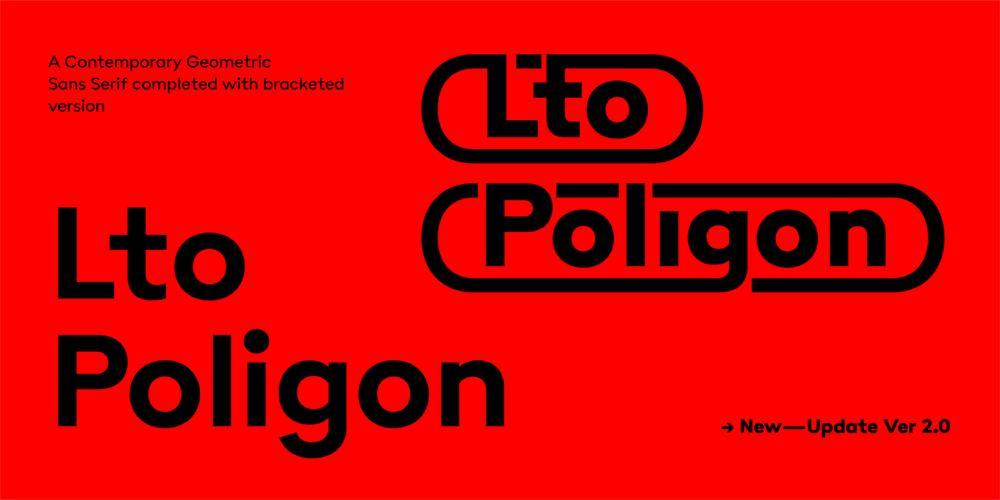
Poligon Font Family was designed by Deni Anggara and published by Letter Omega. Poligon contains 22 styles and family package options. Poligon is a large family of geometric sans serif fonts. It is inspired by classic typefaces from the geometric-sans genre, like Futura and Avant Garde Gothic, whose shapes were constructed from circles and straight lines. Every character has been crafted to give it a distinct and individual feel. The family is an excellent choice for both corporate design and editorial design projects because of its range of weights, as well as its legibility in text.